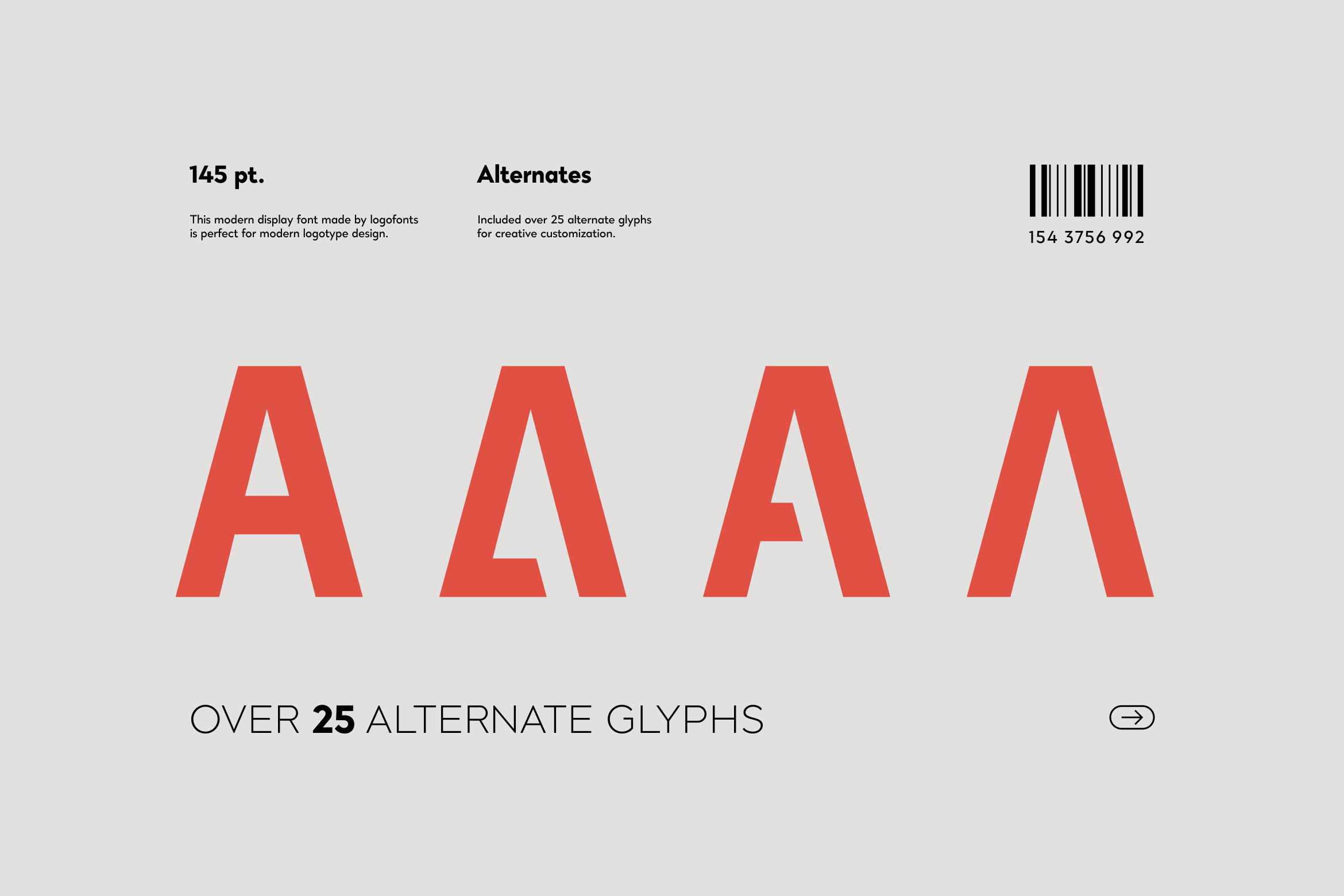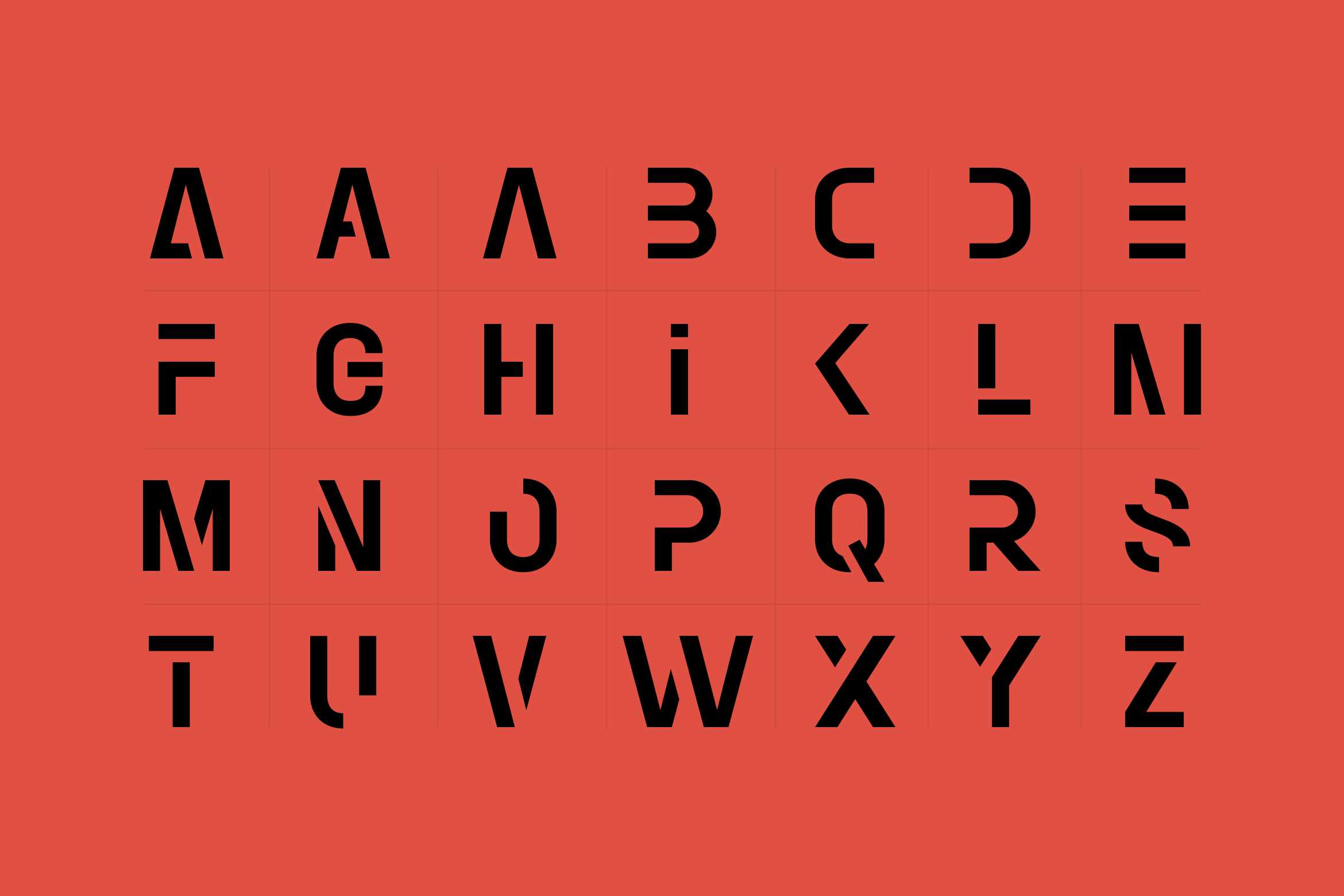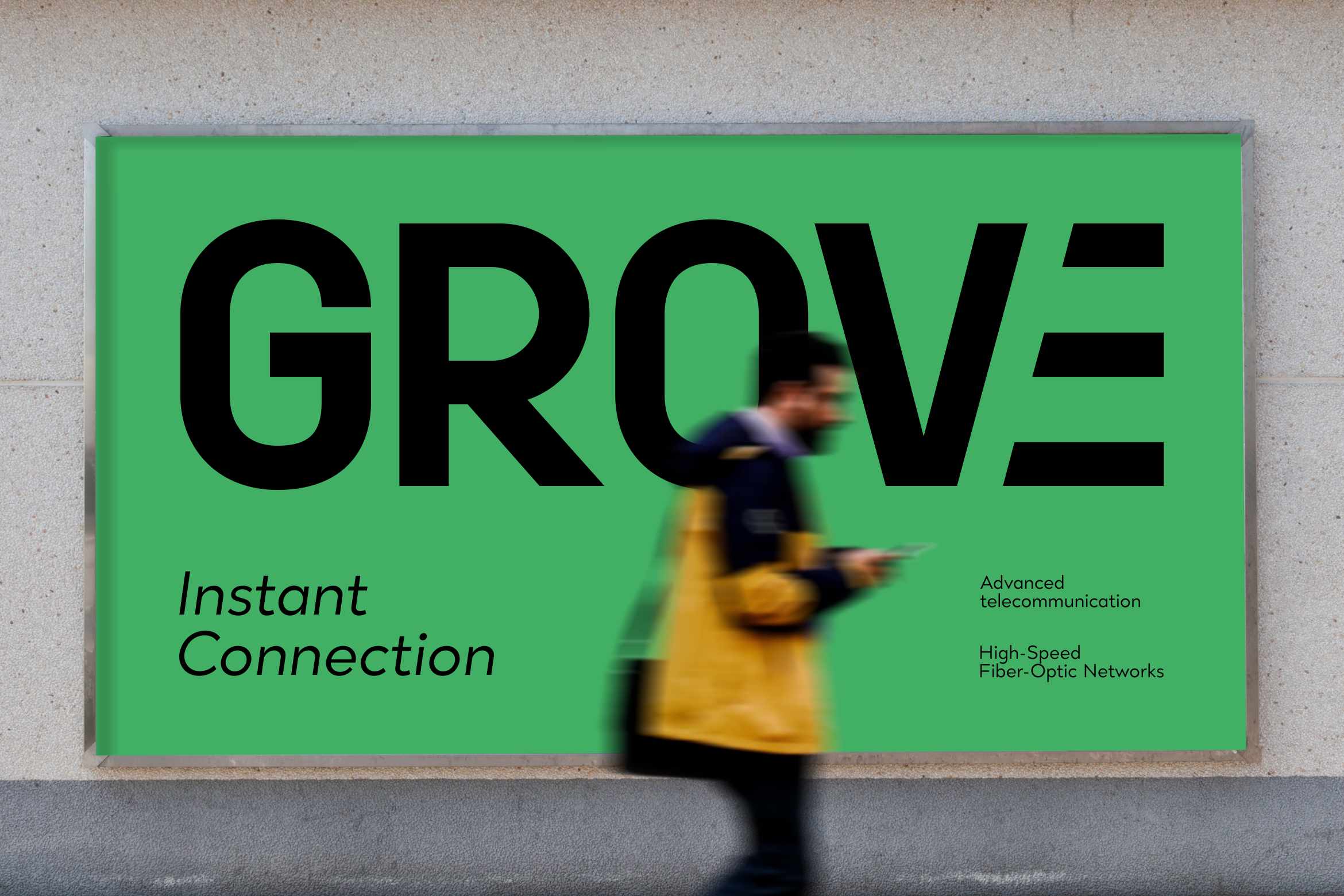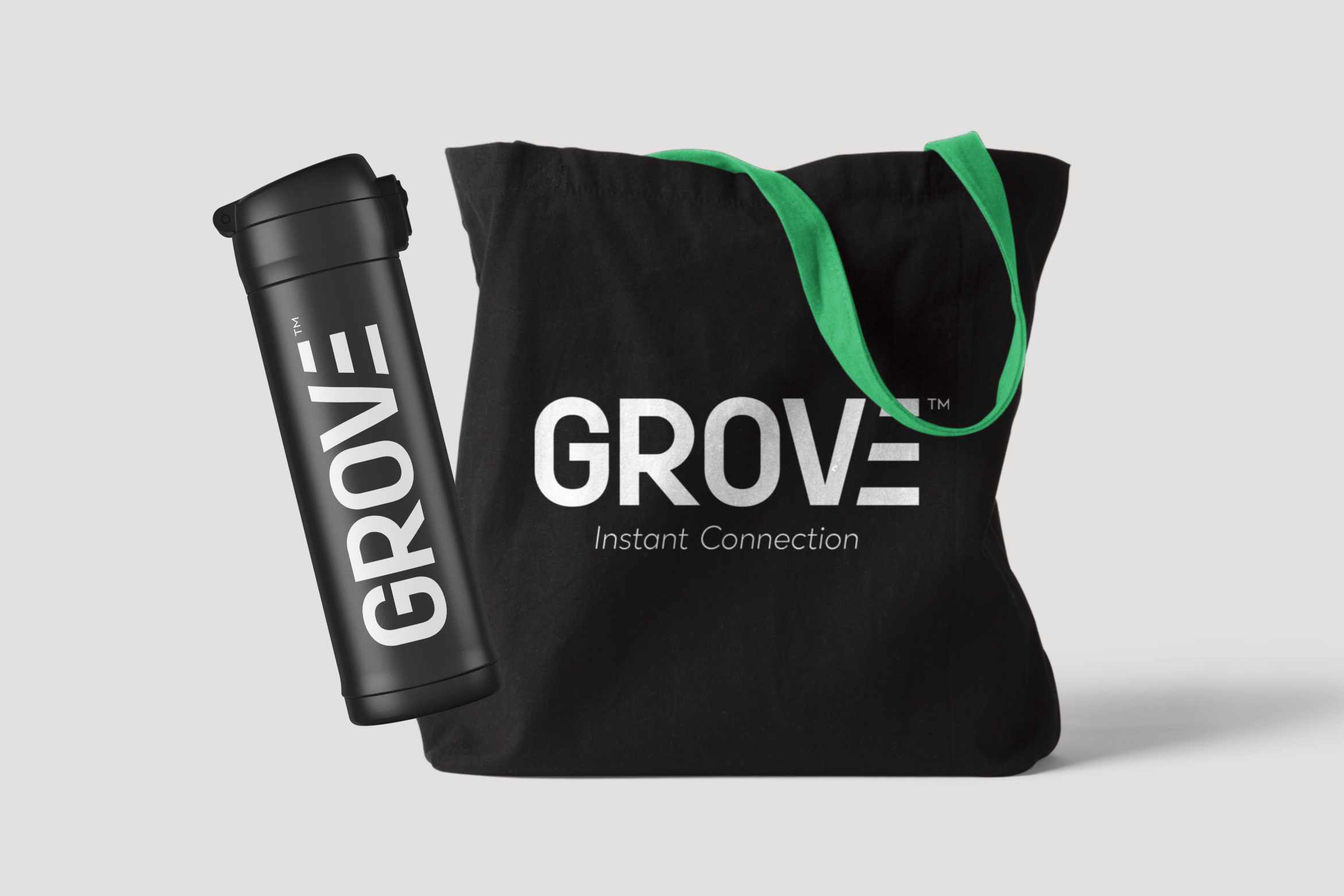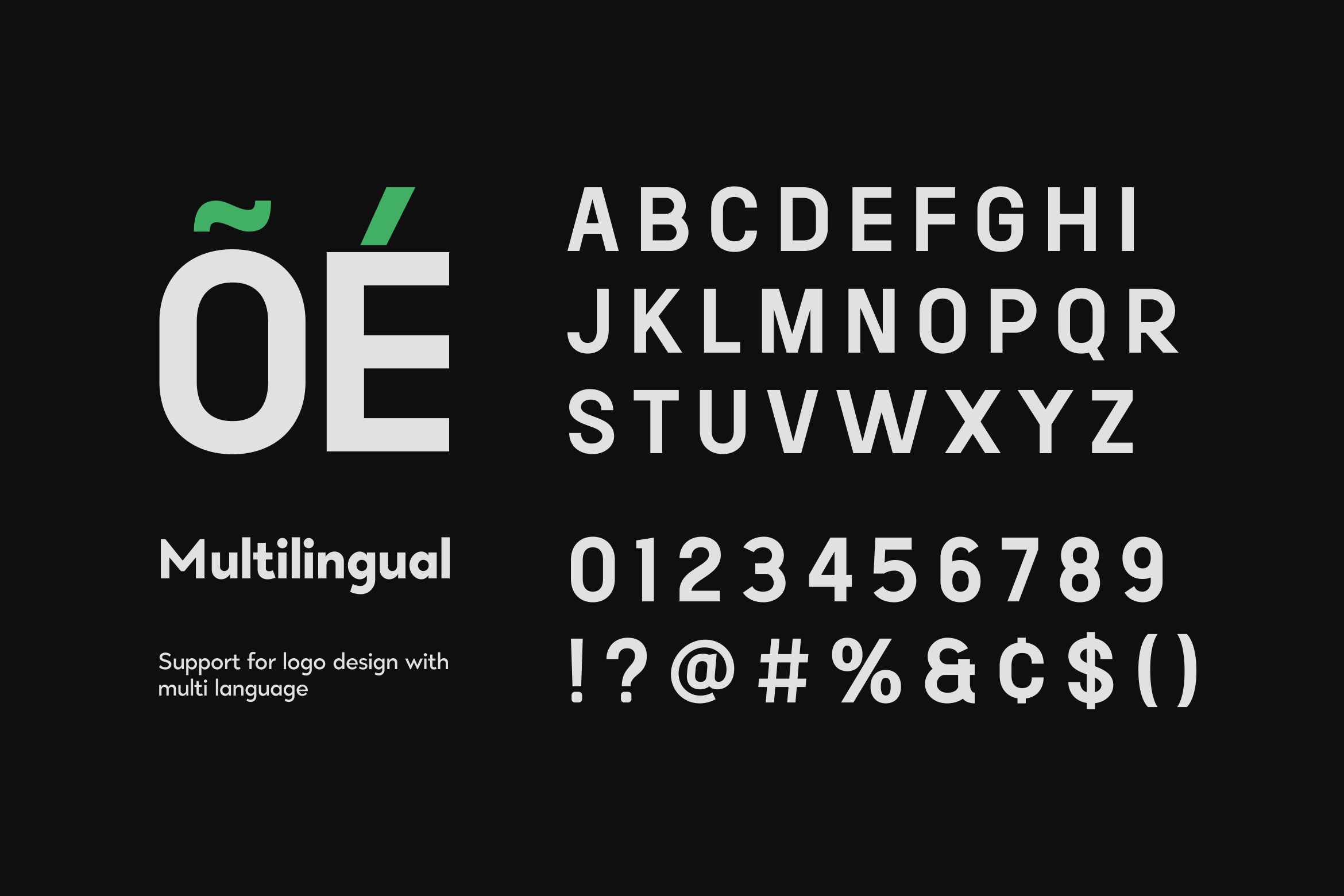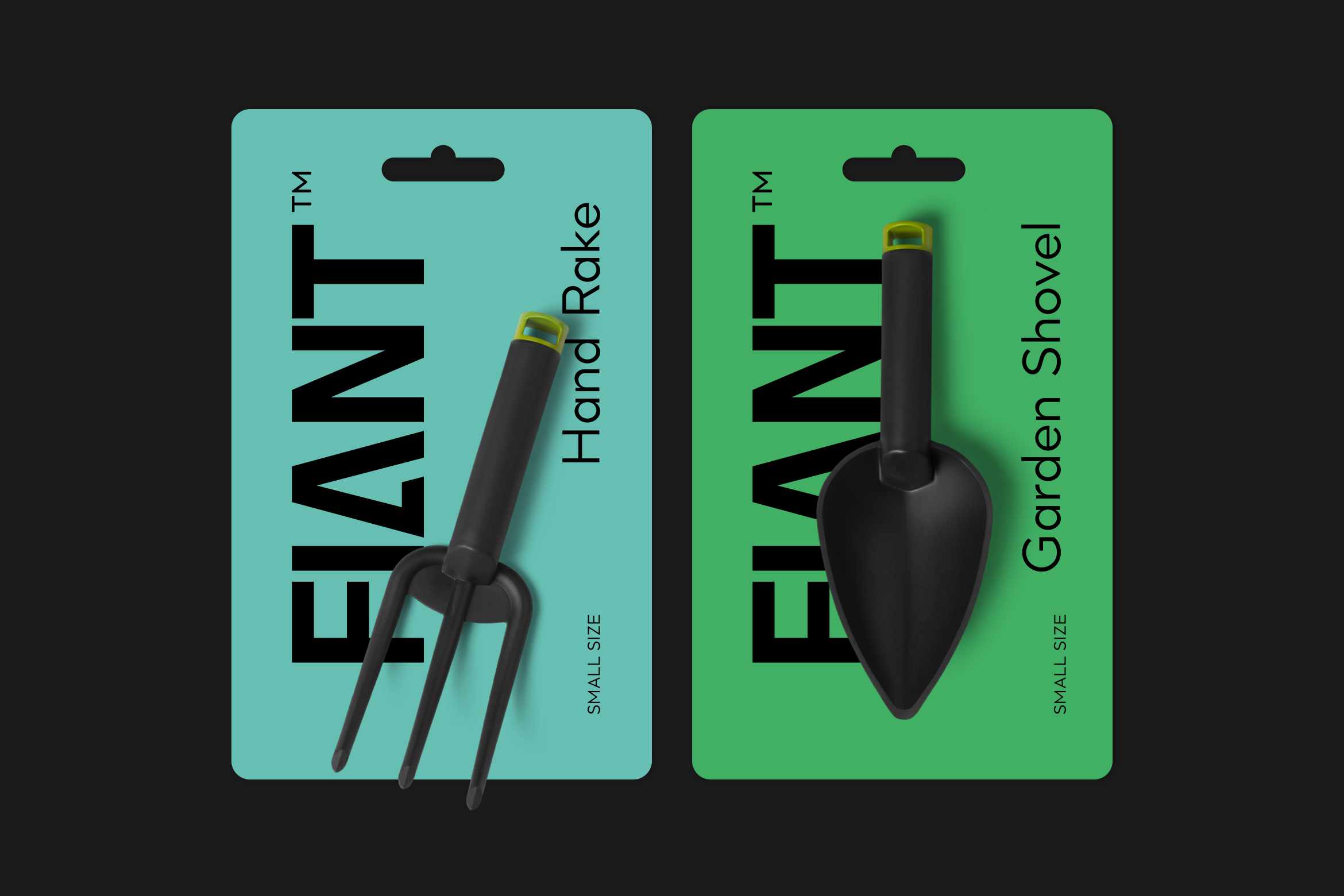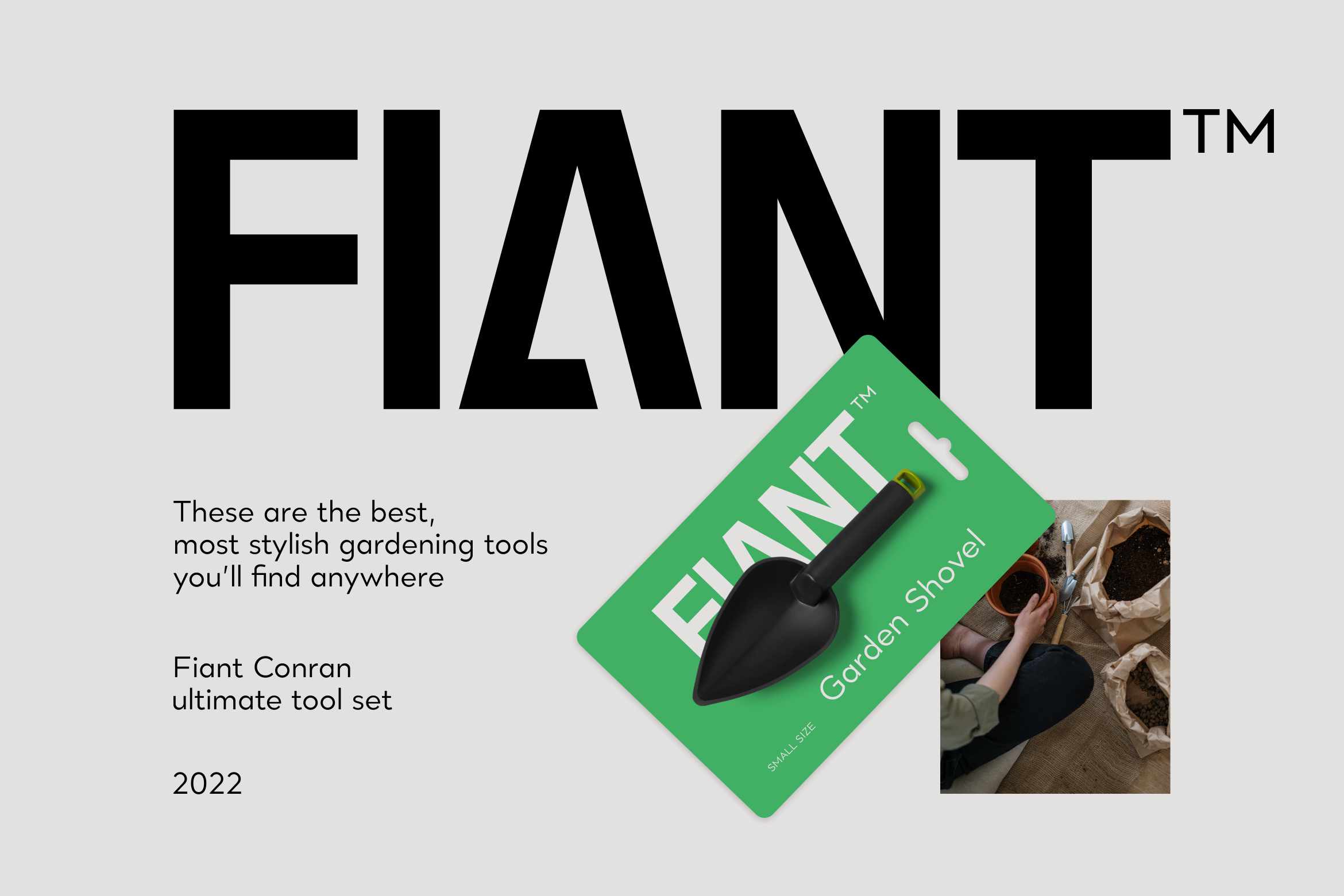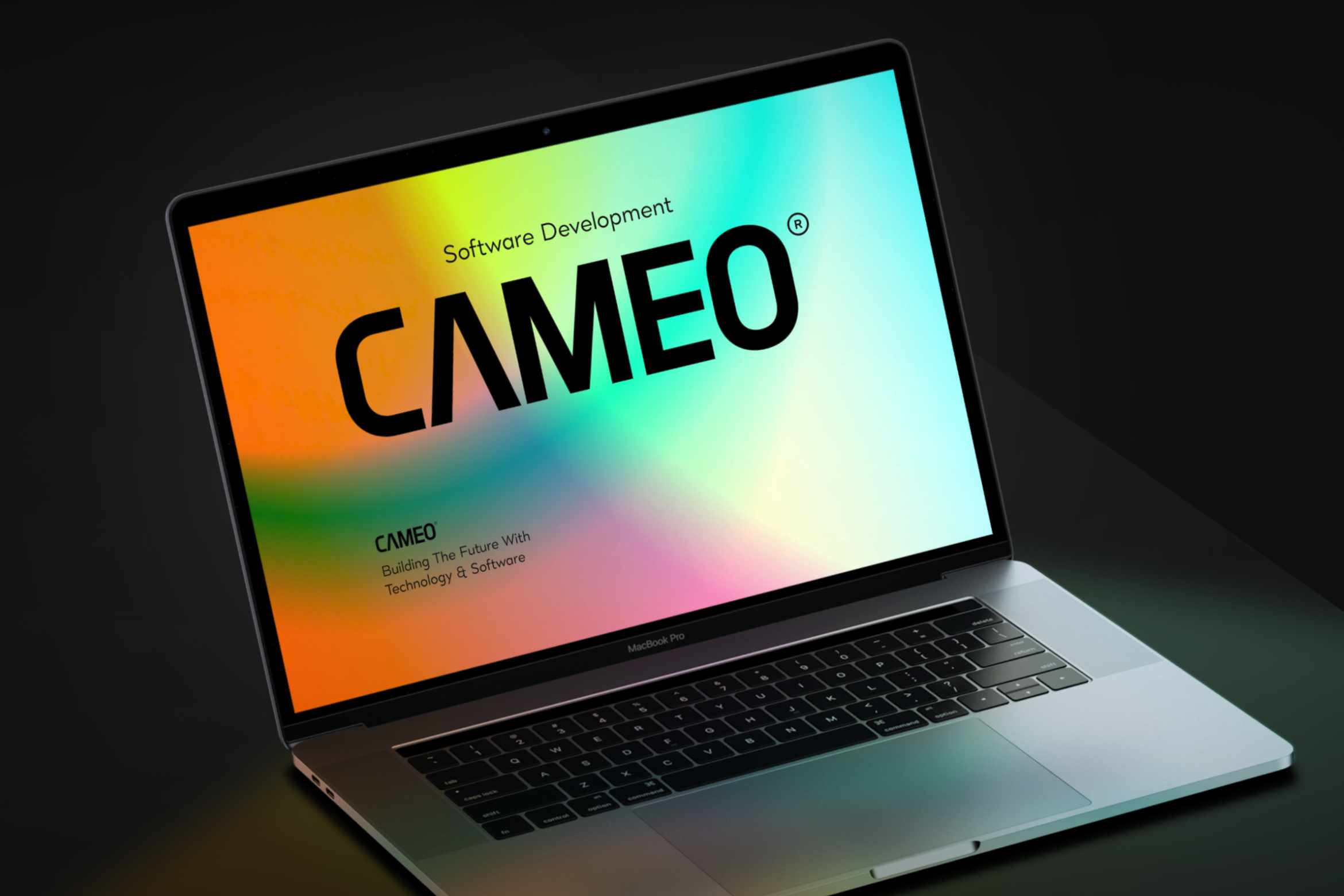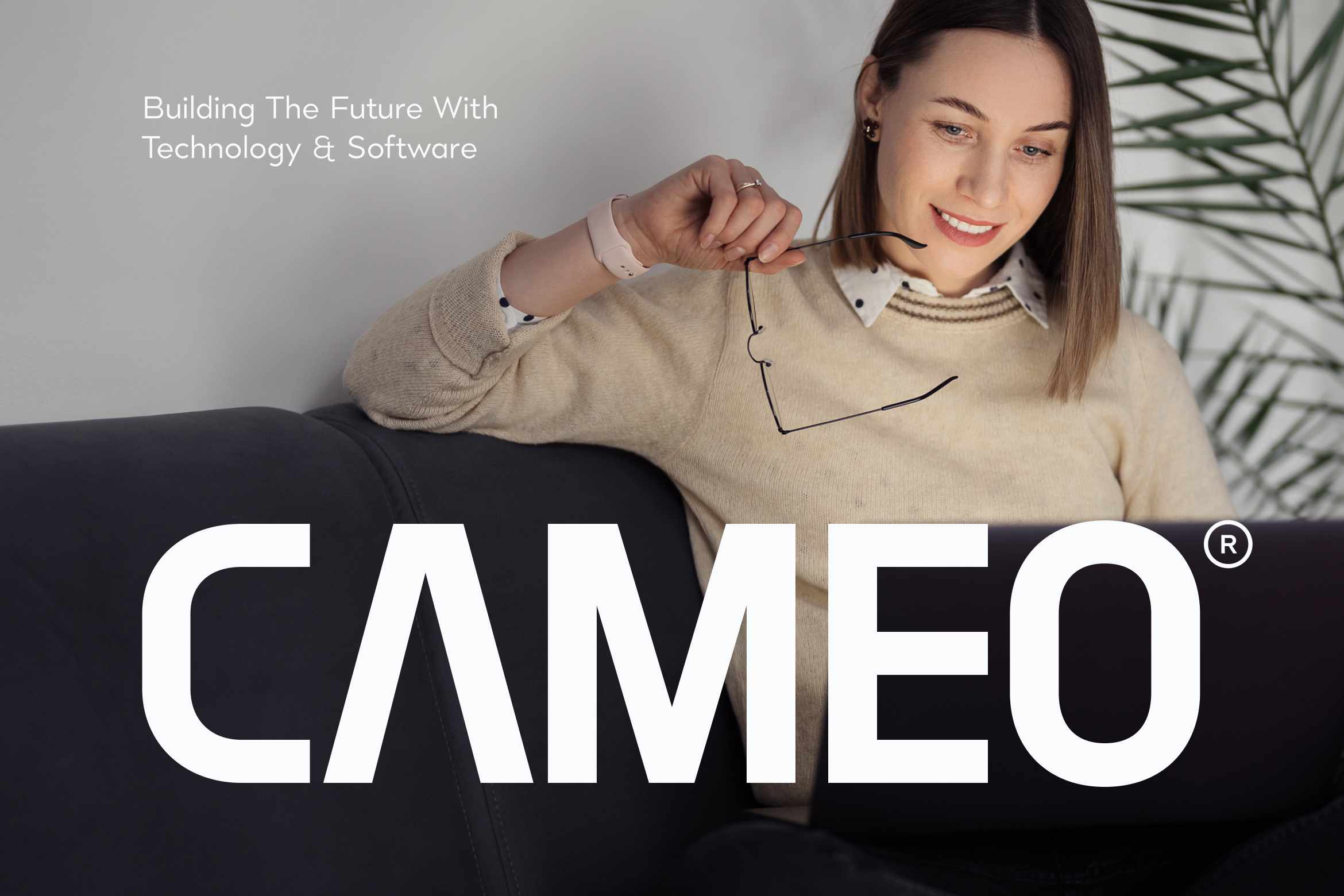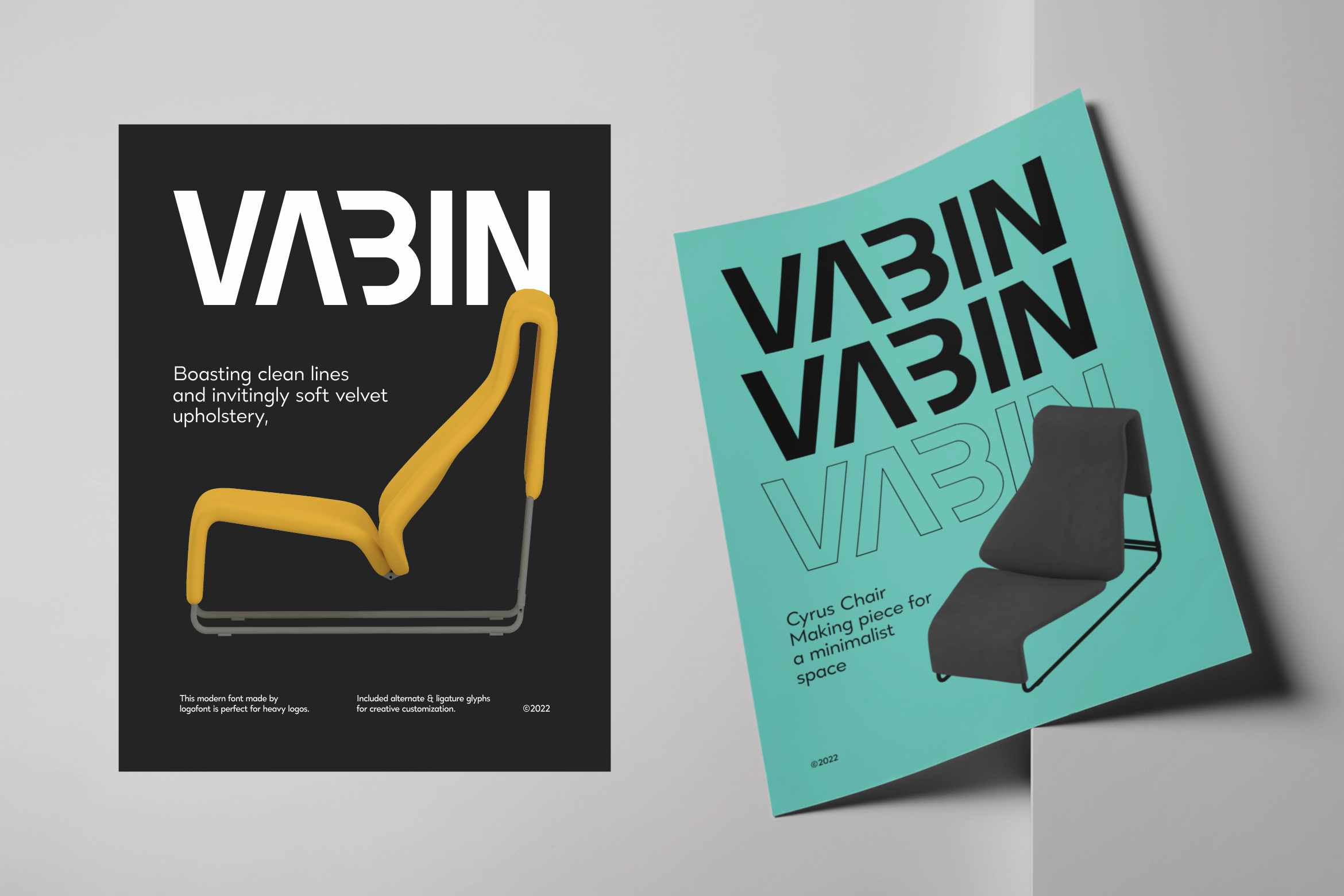
Bristol
Introduce your brand with precision and confidence using this bold modular display font. Designed with futuristic curves, angular strokes, and minimalist geometry, this typeface blends industrial strength with cutting-edge aesthetics. Its clean construction and experimental alternates offer a high-impact presence ideal for logos, product packaging, sports equipment, and tech branding.
Each glyph is optimized for clarity and uniqueness, delivering a customizable identity system. Whether on billboards, editorial spreads, or digital apps, this font elevates visual storytelling with sharp alternates and a bold, assertive tone. Perfect for modern brands looking to make a lasting impression through typographic distinction.